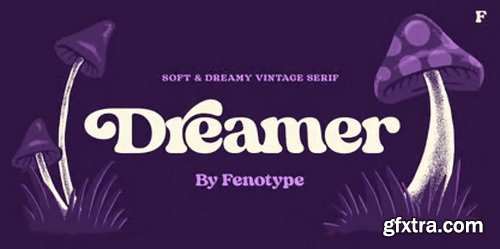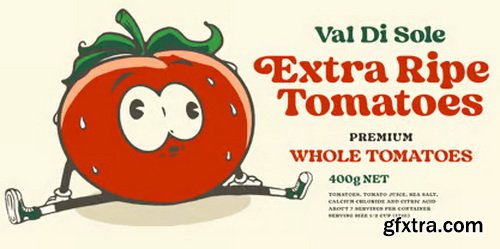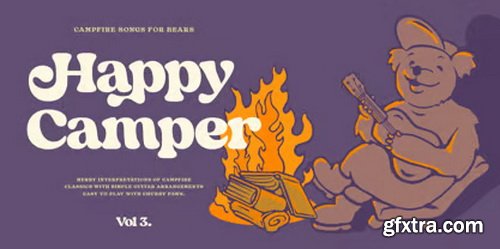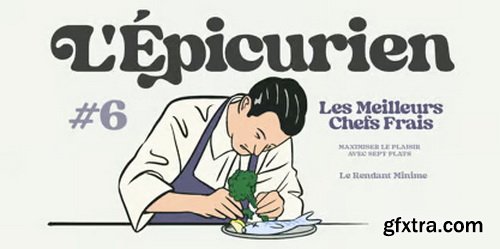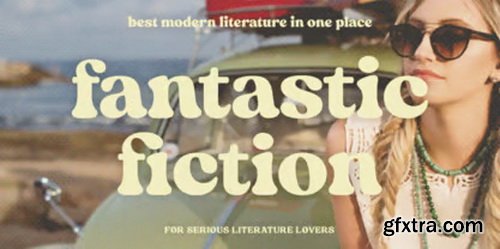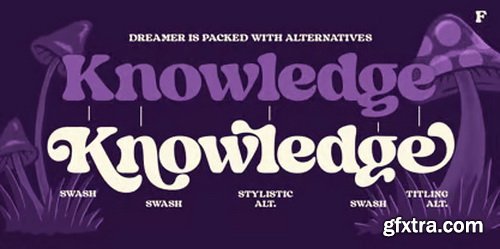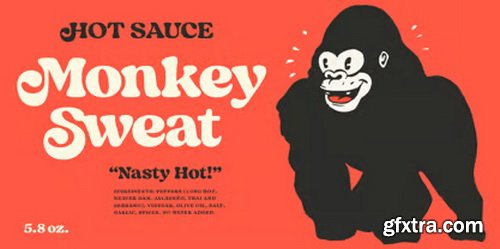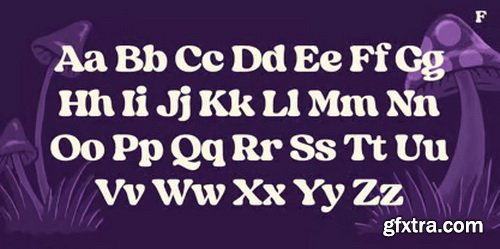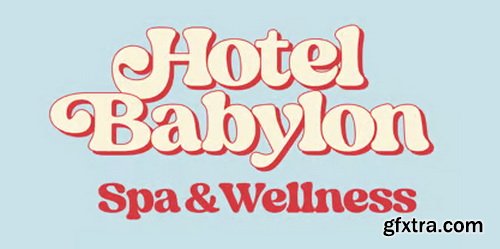
Dreamer is a soft and dreamy serif with serious vintage appeal. As Dreamer occupies the space with its large x-height and wide characters it’s effective for any display use where you need to communicate a friendly, fun and easy to approach feeling with a touch of charming nostalgia polished in modern days aesthetics.